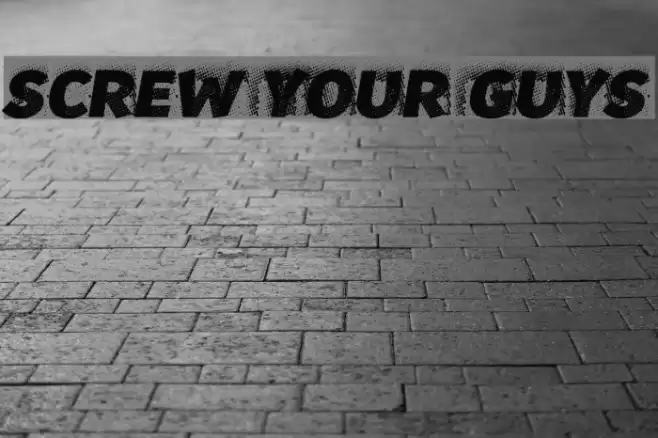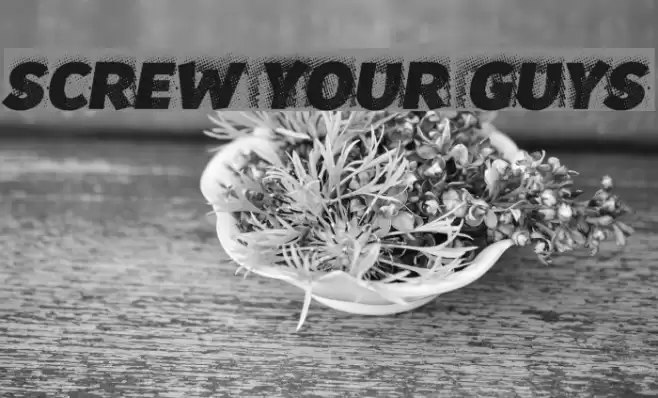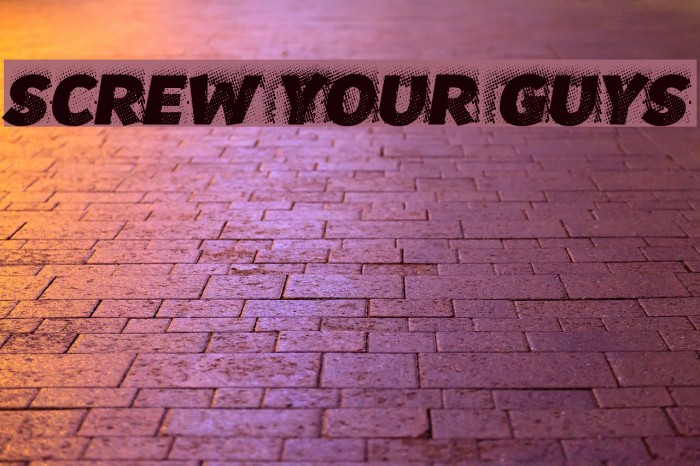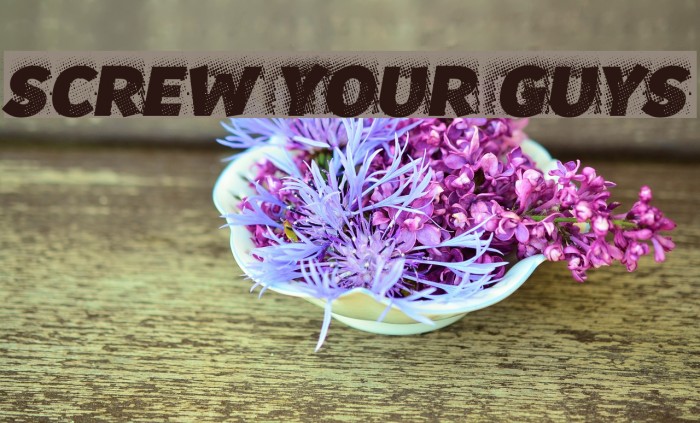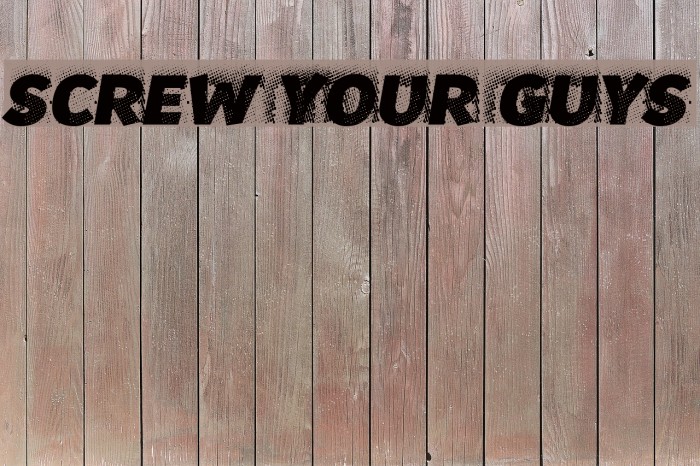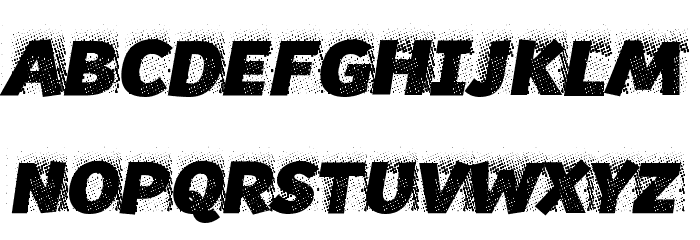
Screw your guys! Font
Screw your guys! Description
This font features a bold and dynamic style with a distinct halftone texture, giving it a retro and comic book-like appearance. The characters are slanted, adding a sense of movement and energy. The boldness of the letters makes them stand out, while the halftone pattern adds a layer of visual interest and texture. This combination of boldness and texture makes it ideal for eye-catching designs. The font is all uppercase, emphasizing its strong and impactful nature.
Bold, slanted font with a halftone texture for a retro, dynamic look from Distorted Eroded fonts.
- Proposed Projects: Ideal for comic book covers, retro posters, and dynamic advertising materials.
- Overall Style: Retro, Dynamic
- Use Case: Headlines, Posters, Advertising